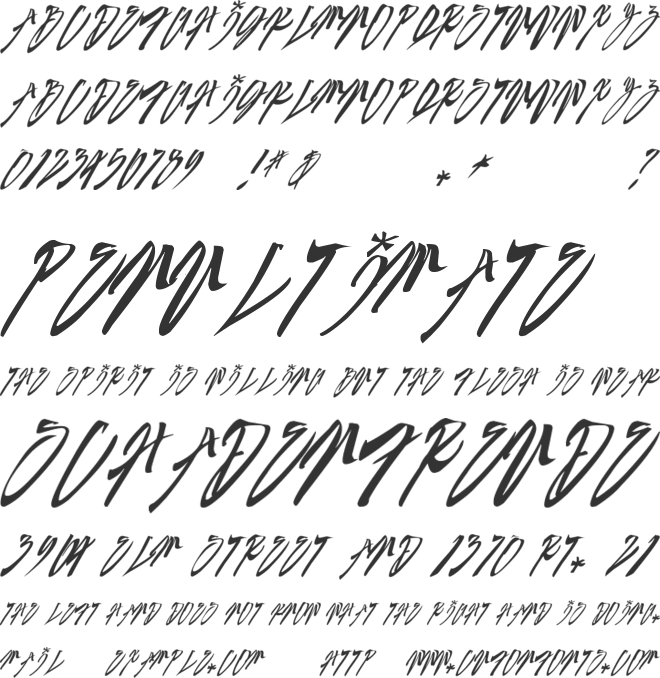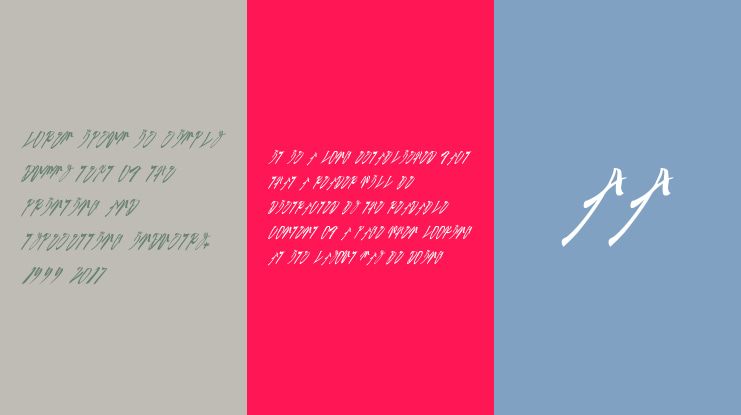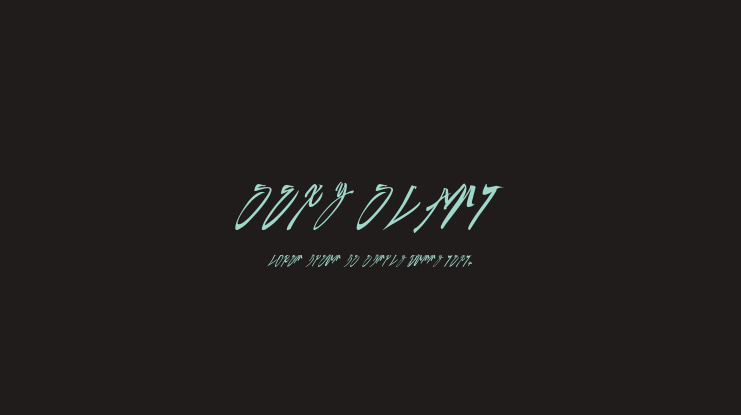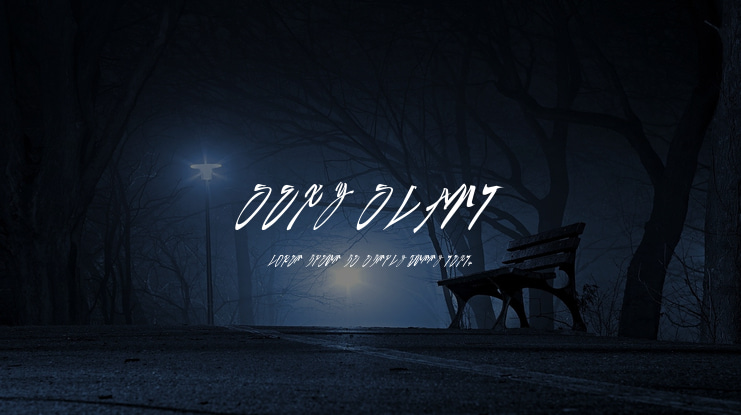
SEXY SLANT Font
SEXY SLANT HAND SCRIPT. This Font was one I made and was never completely finalized. All the letters are there for the artists that know how to FREAK It.